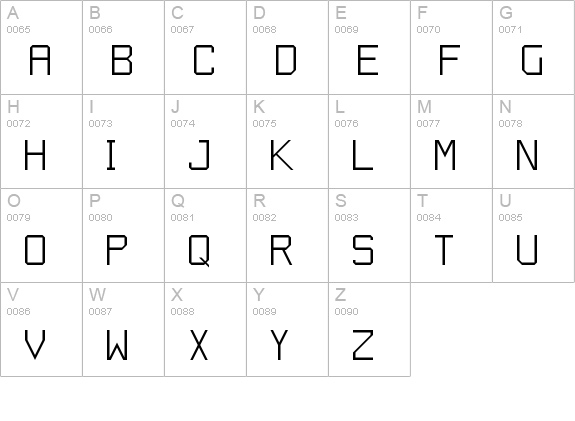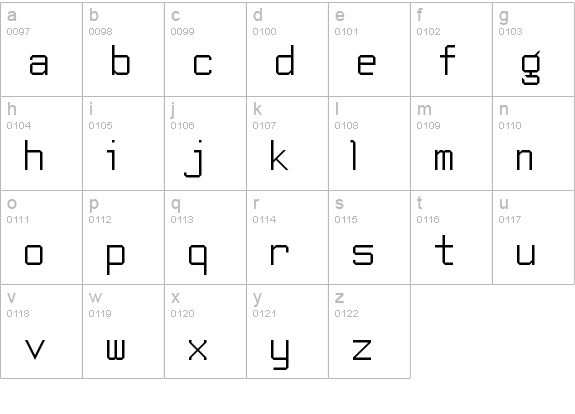
Introducing the captivating and intriguing Sebastian Gothic NBP font, a timeless typeface that combines elegance with a touch of gothic charm. With its meticulously crafted letterforms, this font exudes an air of mystery and sophistication, making it the perfect choice for projects that require a bold and distinctive aesthetic. Sebastian Gothic NBP font is not only visually striking but also offers a seamless reading experience. Its carefully balanced proportions and legible design ensure that every word is effortlessly deciphered, making it ideal for both headlines and body text. Whether used in print or digital mediums, this font commands attention and adds a unique flair to any project. What sets Sebastian Gothic NBP font apart is its versatility. From classic book covers to modern website designs, this font effortlessly adapts to various design contexts, enhancing the overall visual impact. Its clean lines and sharp edges make it a go-to choice for graphic designers, typographers, and creatives who seek a font that stands out from the crowd. But perhaps the most enticing aspect of Sebastian Gothic NBP font is that it is available for free. Yes, you read it right! This exceptional font can be freely downloaded at FontsMarket.com. Now, you can effortlessly elevate your designs without breaking the bank or compromising on quality. Don't miss out on this incredible opportunity to add a touch of gothic elegance to your design arsenal. So, whether you're working on a logo, branding, website, or any other creative project, Sebastian Gothic NBP font is here to help you make a lasting impression. Download this remarkable font today and unleash your creativity like never before. Experience the power of free and captivating design with Sebastian Gothic NBP font, available exclusively at FontsMarket.com.